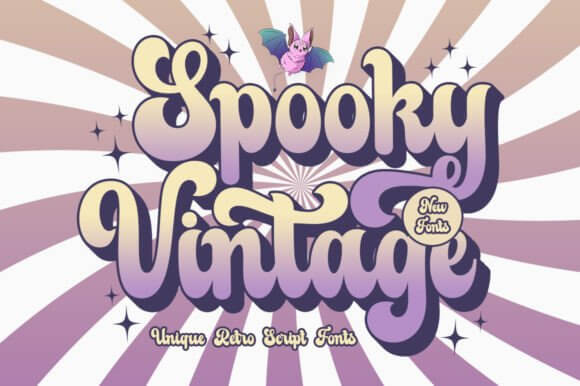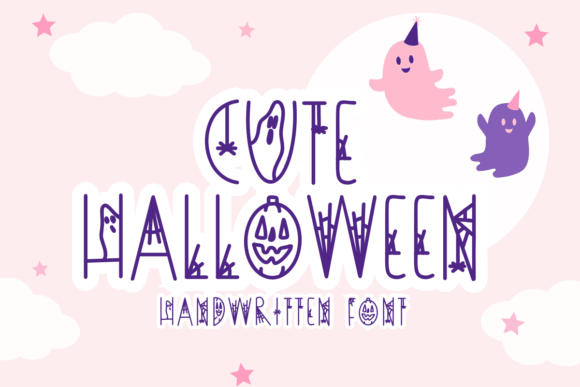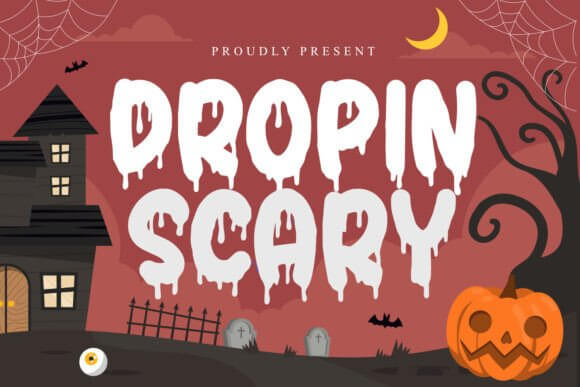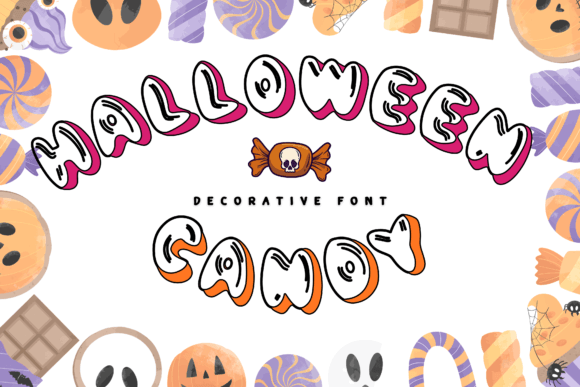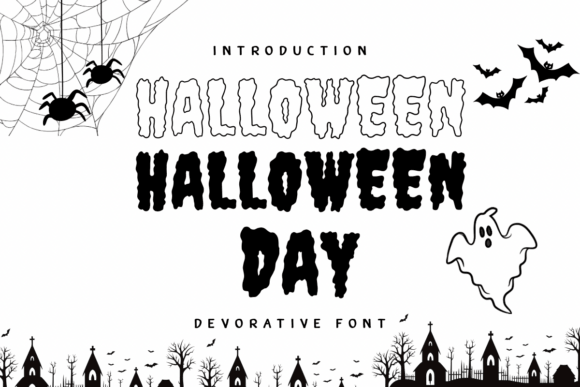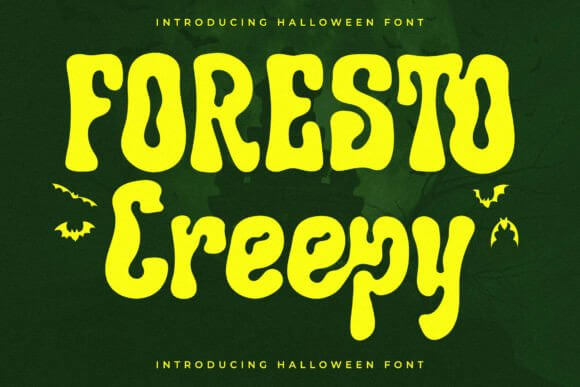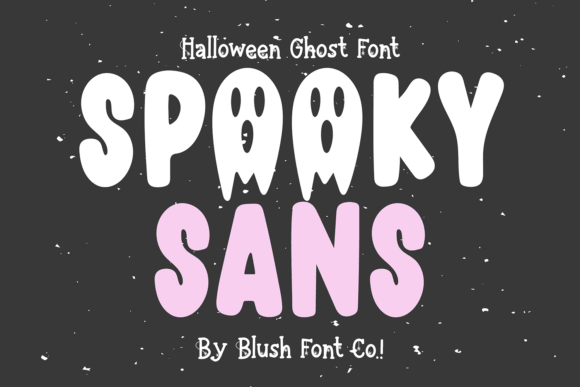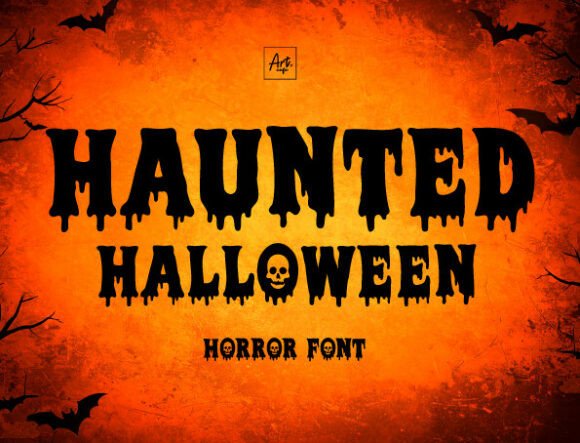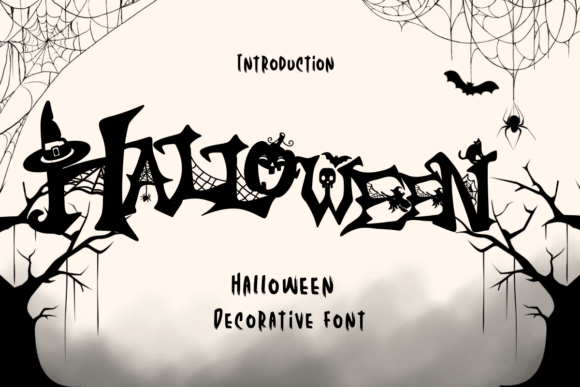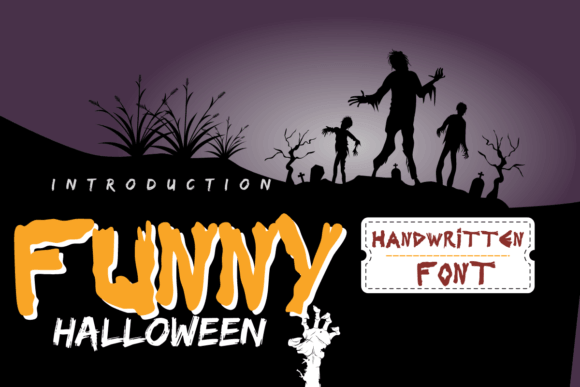
Searches for Halloween fonts free jump hard every fall because type sets the mood before anyone reads the offer. One headline can make a flyer feel campy, creepy, vintage, cute, or flat-out forgettable, so we pulled 15 font picks that cover retro horror, playful scripts, witchy display styles, bone-inspired lettering, and clean spooky options for posters, shirts, party invites, labels, and quick social graphics.
Some projects need blood drips. Some need candy-colored curves. But the real trick sits in choosing a font that matches the job, not just the season. This roundup helps crafters, small shops, and designers compare free Halloween fonts fast, with practical ideas for merch, classroom printables, packaging, branding, and October promos that actually look finished.
Spooky Vintage Retro Halloween Font Style
Spooky Vintage leans into worn poster energy and old-school horror charm. If you love retro Halloween fonts that feel dusty, weird, and way more interesting than clean default type, this one gives flyers and labels instant attitude. It looks rough in the best way.
Best Projects For This Font
- Event Posters – Push gritty haunted house headlines fast.
- Product Labels – Add character to candles and fall treats.
- Pop-Up Branding – Build a seasonal shop look.
- Apparel Prints – Print bold wording with nostalgia.
Spooky Sans Clean Scary Display Font
Spooky Sans strips the theme back and keeps the scare factor clean. That makes this spooky sans serif pick great for modern shop promos, social posts, and merch where you want Halloween flavor without messy details chewing up the layout. FYI, that versatility matters.
Best Projects For This Font
- Shop Banners – Keep seasonal promos sharp and readable.
- Email Headers – Add mood without clutter.
- Product Mockups – Let packaging stay clean.
- Minimal Posters – Create sleek spooky layouts.
Haunted Halloween Playful Horror Font
Haunted Halloween plays louder, with curvier strokes and a playful horror feel that suits family events and crafty projects. We like this haunted lettering style when a design needs ghosts, pumpkins, or trick-or-treat energy without sliding into cheesy dollar-store territory. Cute, but not limp.
Best Projects For This Font
- Party Invites – Set a fun spooky tone.
- Kids Crafts – Keep projects lively and readable.
- Scrapbook Titles – Add seasonal flair quickly.
- Teacher Printables – Dress up classroom handouts.
Halloween Bold Drip Lettering Font
Halloween keeps things bold and readable, which sounds basic until you need a headline that survives print, screens, and tiny mockups. If you want Halloween fonts blood vibes without unreadable splatter, this one lands right in the sweet spot. That balance feels rare.
Best Projects For This Font
- Horror Flyers – Grab attention from a distance.
- Menu Boards – Keep spooky promos clear.
- Packaging Fronts – Add drama to labels.
- Yard Signs – Make messages visible fast.
Spooky Season Cute October Script Font
Spooky Season feels softer and more playful, almost like the font version of candy bowls and orange string lights. This cute spooky script works for mugs, stickers, classroom decor, and handmade products where charm matters more than full-on terror. Small brands can milk it for days.
Best Projects For This Font
- Stickers – Add cozy October charm.
- Mugs And Tumblers – Print friendly seasonal quotes.
- Classroom Decor – Keep the mood cheerful.
- Handmade Tags – Dress up small product bundles.
Retro Spooky Groovy 80s Halloween Font
Retro Spooky goes all in on curves, chunky forms, and that disco-haunt mashup people either adore or side-eye. We think 80s Halloween fonts look incredible on tees, party signage, and social graphics when you want October to feel fun, loud, and a bit kitsch. This one doesn’t flop.
Best Projects For This Font
- T-Shirt Graphics – Push bold retro statements.
- DJ Flyers – Match neon party themes.
- Event Backdrops – Fill space with personality.
- Social Covers – Stop the scroll quickly.
Funny Halloween Whimsical Party Font
Funny Halloween keeps the mood light, goofy, and super usable for kid-friendly projects. If your brand leans cheerful, quirky Halloween fonts like this help you sell the season without scaring off shoppers, parents, or anyone who hates grim horror visuals. You can push color hard with it.
Best Projects For This Font
- Kids Party Kits – Keep graphics playful.
- Seasonal Stickers – Add bounce to small designs.
- Baked Goods Signs – Make tables look inviting.
- Cheerful Merch – Sell fun October mood.
Halloween Magic Witchy Display Font
Halloween Magic brings witchy flair with decorative shapes and a dreamy spooky rhythm. This witchy type design suits invitations, beauty promos, and magical-themed packaging where you want mystery, not gore, and yeah . . . it photographs well in mockups too. It feels polished, not fussy.
- Book Covers – Build instant dark fantasy mood.
- Escape Room Brands – Sell mystery at a glance.
- Potion Labels – Add eerie shelf appeal.
- Dark Campaign Art – Support cinematic spooky themes.
Pick The Font That Fits The Mood
Halloween fonts free options swing from sweet to deranged real fast, and that’s the fun of it. If your project needs vintage grit, candy-shop charm, witchy polish, or full dripping chaos, this list gives you a smart place to start without endless scrolling. Grab a few, test real headlines, and let the lettering do the heavy lifting.